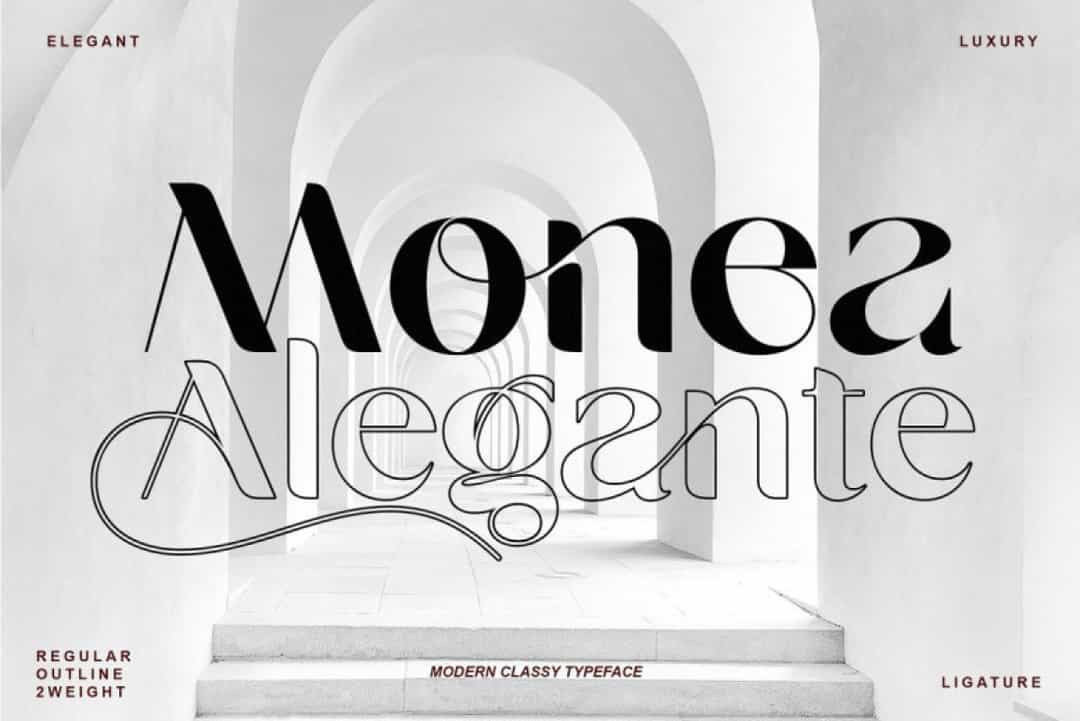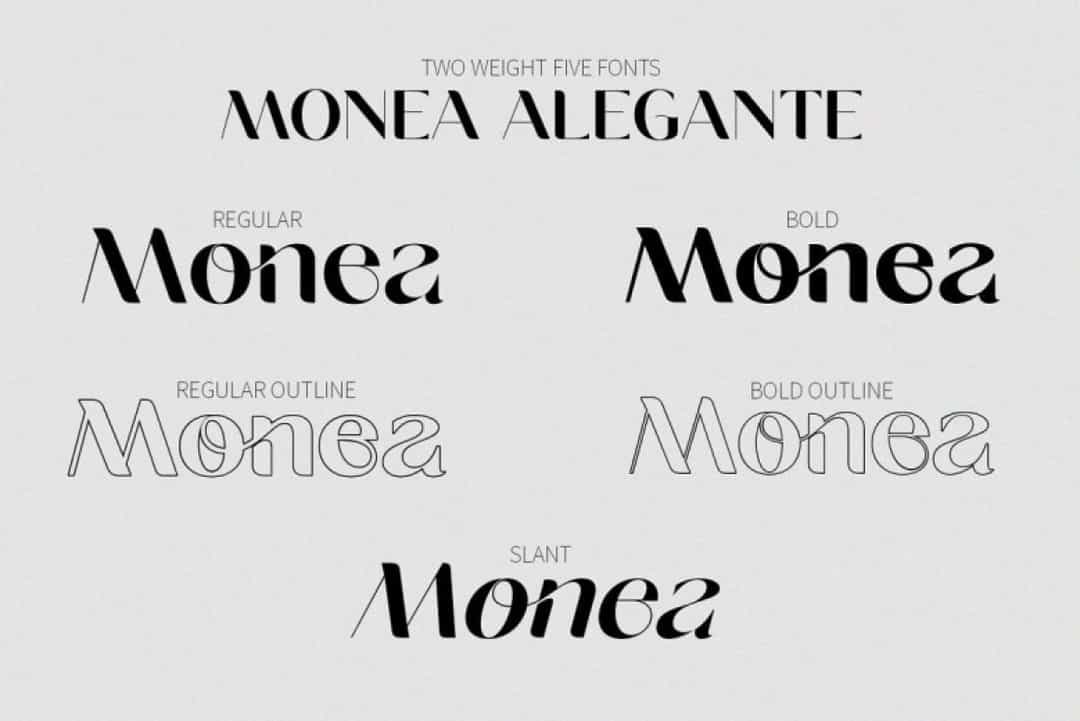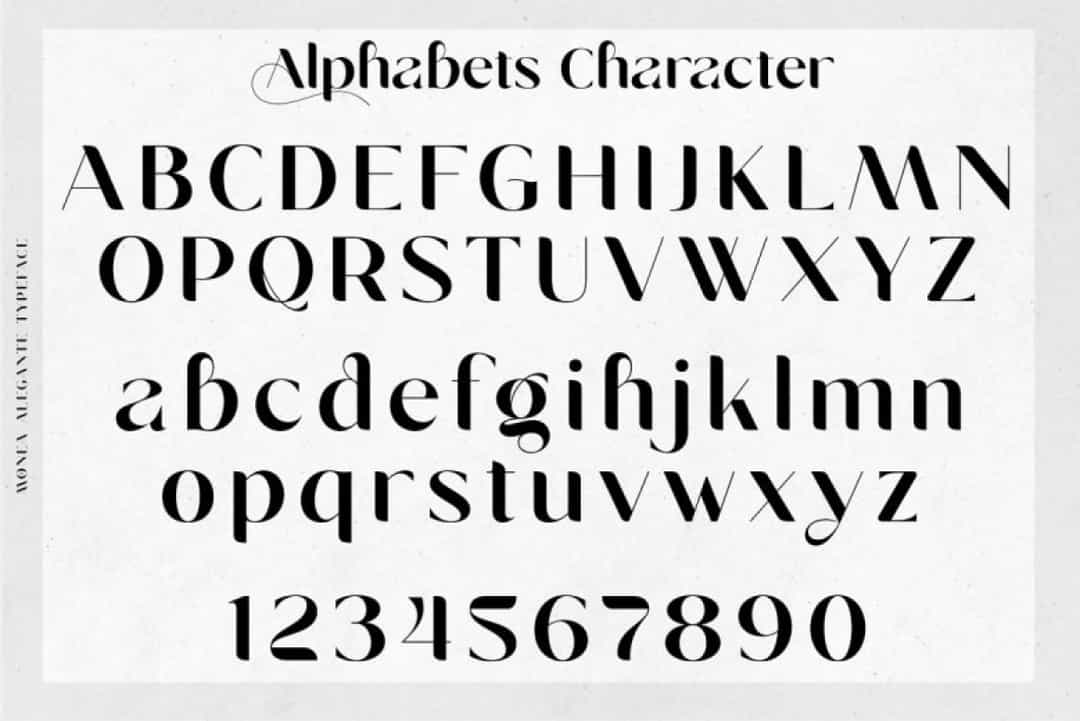
Monea Alegante Sans Serif Font is an outstanding bold minimalist elegant modern vintage font featuring beautiful ligatures, alternate glyphs and ornaments as well as multilingual support. This font works remarkably well across small to large size ranges.